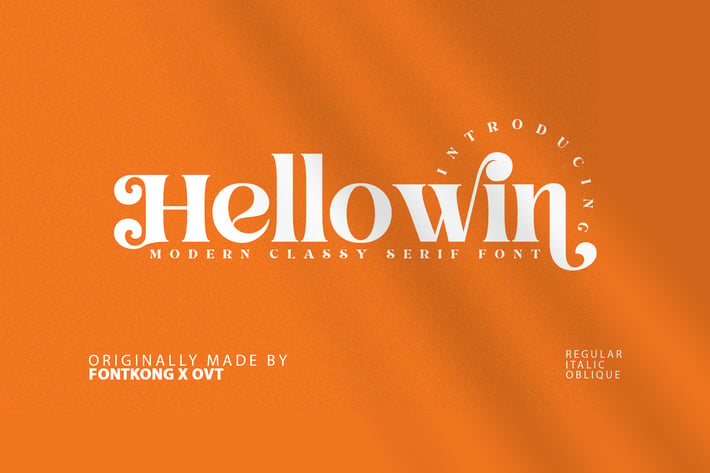
Hellowin - A Modern Classy Serif Font
Hellowin is a sophisticated and elegant serif font designed to bring a touch of class and modernity to your design projects. With its refined lines and timeless letterforms, Hellowin is perfect for high-end branding, elegant invitations, stylish logos, and premium packaging. This font combines the classic beauty of serif typography with contemporary design elements, ensuring your work stands out with sophistication and elegance.
Crafted with meticulous attention to detail, Hellowin features exquisite characters that offer excellent readability and visual appeal. Its elegant design makes it ideal for both headlines and body text, providing a cohesive and polished look across all your visual communications. The font’s versatility allows it to seamlessly integrate into various design contexts, from digital graphics to printed materials.
Elevate your design projects with Hellowin, a font that embodies the perfect blend of elegance and modernity. Its unique style and adaptability make it an essential addition to any designer’s toolkit for creating refined and luxurious visuals. Enhance your work with Hellowin and experience the charm of classy serif typography.